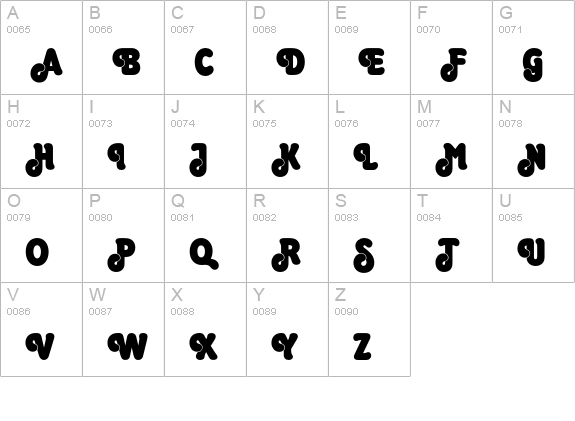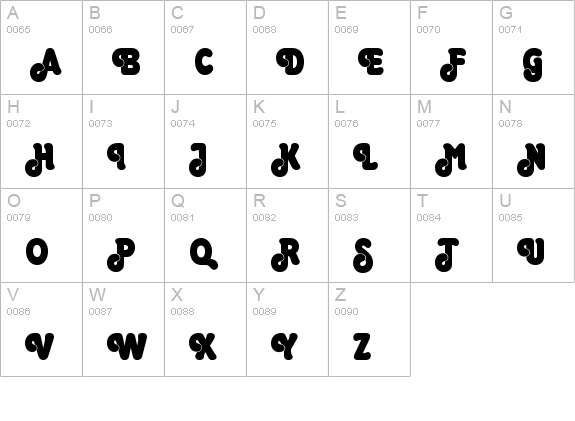
OctopussEF Font Details
OctopussEF font is a stunning display typeface that combines elegance with a touch of playfulness. With its unique octopus-inspired design, this font is perfect for projects that require a bold and eye-catching appearance. Its intricate details and flowing curves make it a versatile choice for a wide range of design applications. What makes OctopussEF font even more appealing is that it is available for free download at FontsMarket.com. This means that you can easily access this beautiful font and use it in your projects without any cost. Whether you are working on posters, banners, logos, or any other design project, OctopussEF font is sure to make a statement and leave a lasting impression. Download it today and add a touch of creativity to your designs!